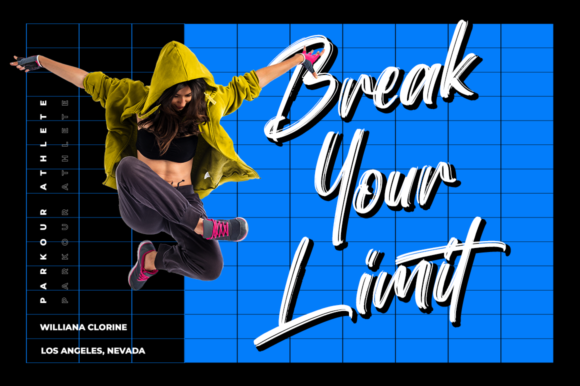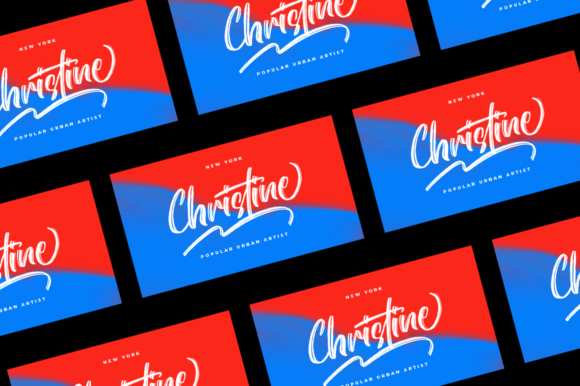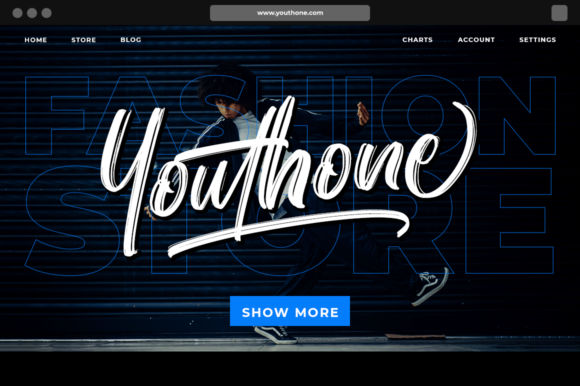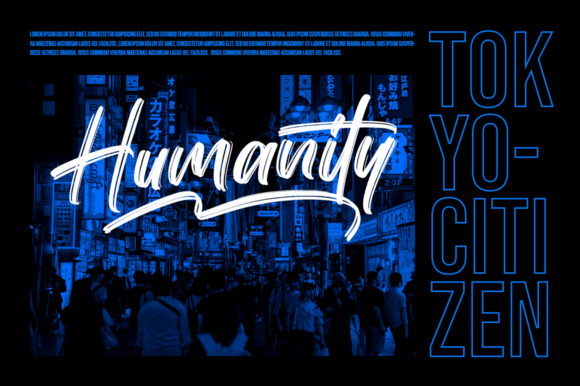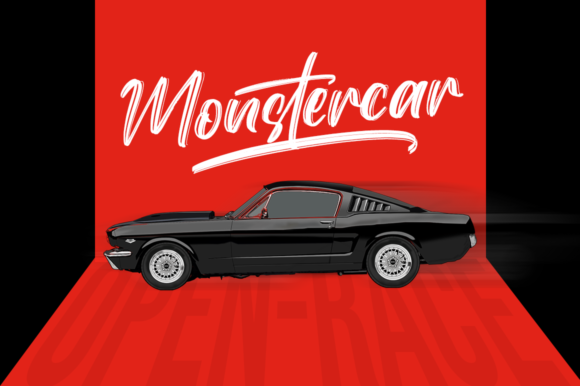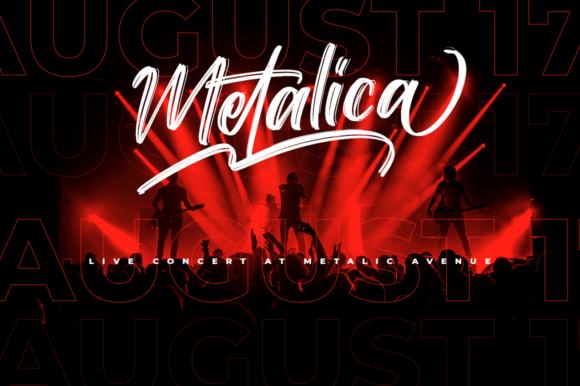
Introduction to Brostone Font
Brostone is a brushed script font featuring charming, playful characters that seem to dance along the baseline.
Add this font to your most creative ideas, and notice how it makes them stand out .
Key Features of Brostone Font
Why Choose Brostone Font?
Brostone Font offers exceptional quality and versatility, making it a valuable addition to your design toolkit. Whether you’re creating for personal projects or commercial use, Brostone Font delivers professional results.